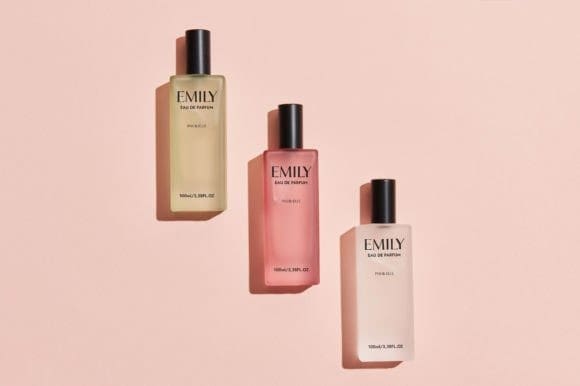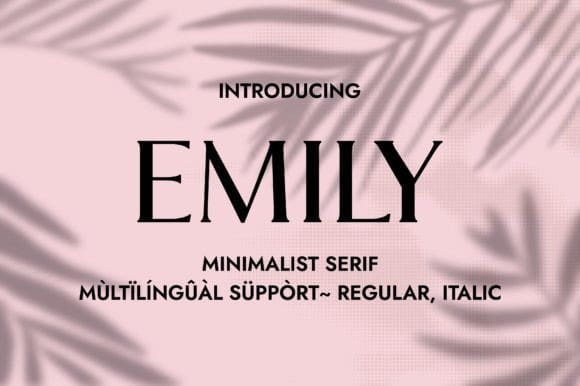
Emily Font
Emily Font is a romantic, clean, and minimalist serif font. Elegant and precise, it is perfect for packaging design, perfume design, titling, cosmetics design, website banners, and many more. Add it confidently to your font library, and you will notice how fast it becomes one of your fundamental design choices.